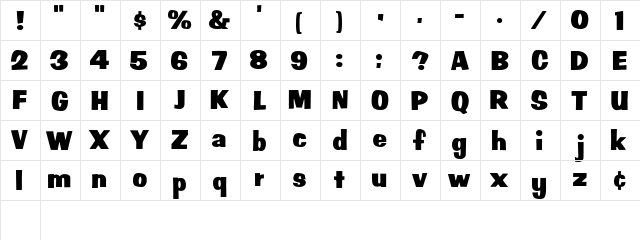
2 Auction Block DNA Regular
Design Context for 2 Auction Block DNA Typeface
2 Auction Block DNA is a composed and adaptable typeface that performs quietly and consistently across a wide range of design contexts.